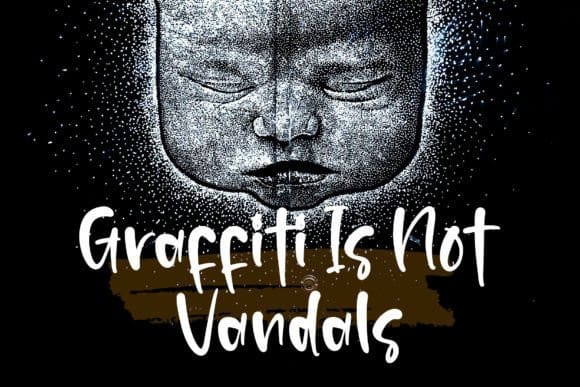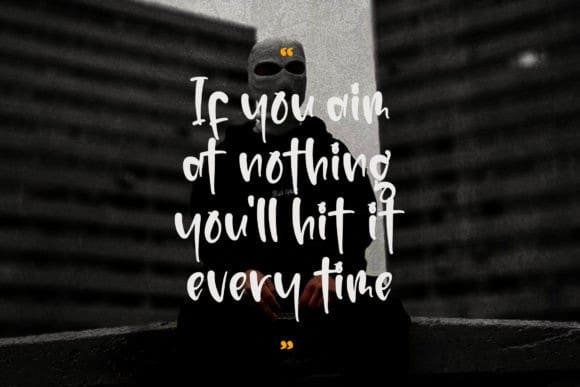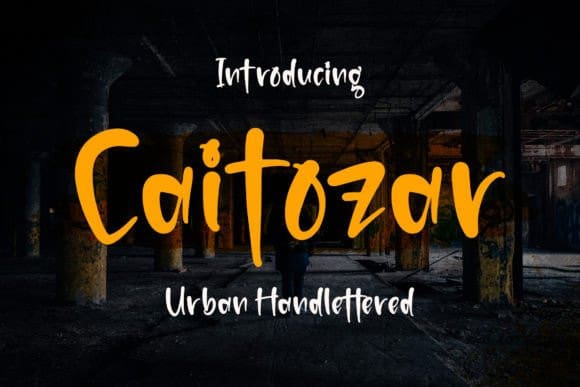
Caitozar Font
Caitozar Font is a modern, cool, urban-style handwritten font. Use it for streetwear, posters, stickers, mugs, or anything that needs a fresh and trendy look.